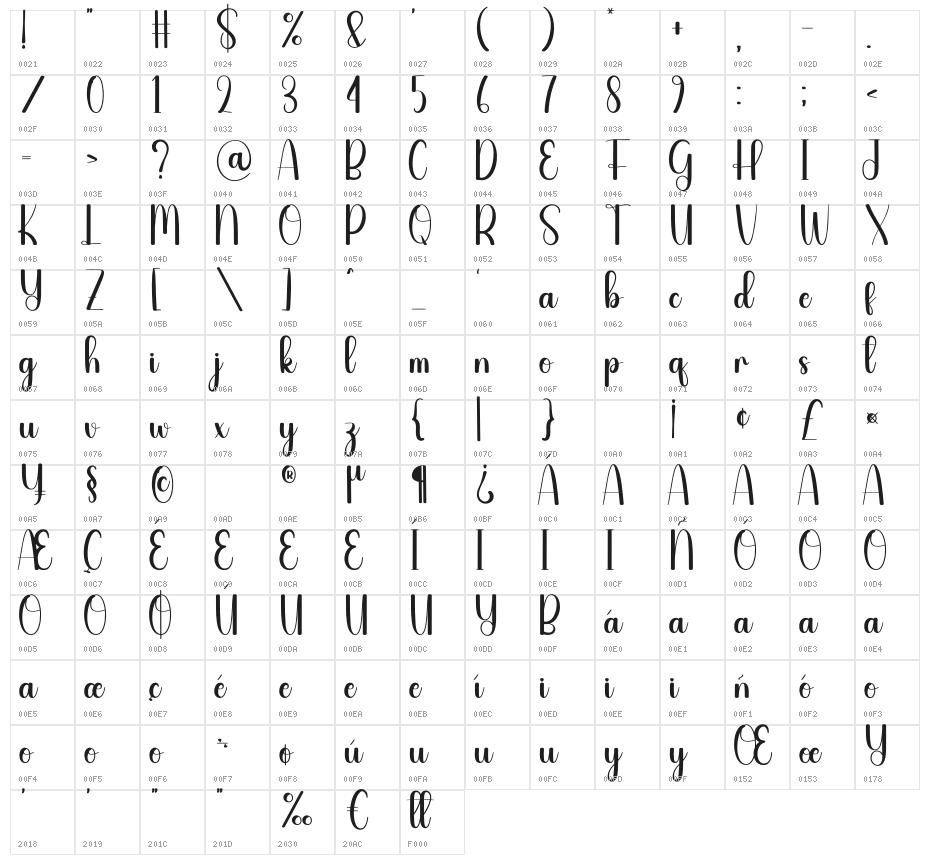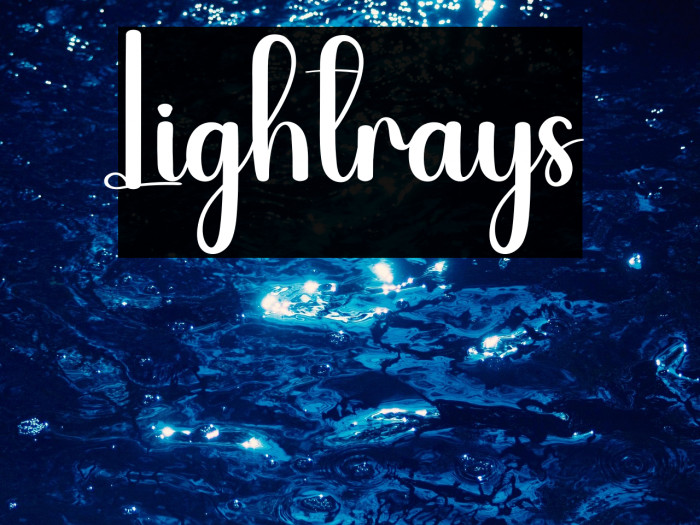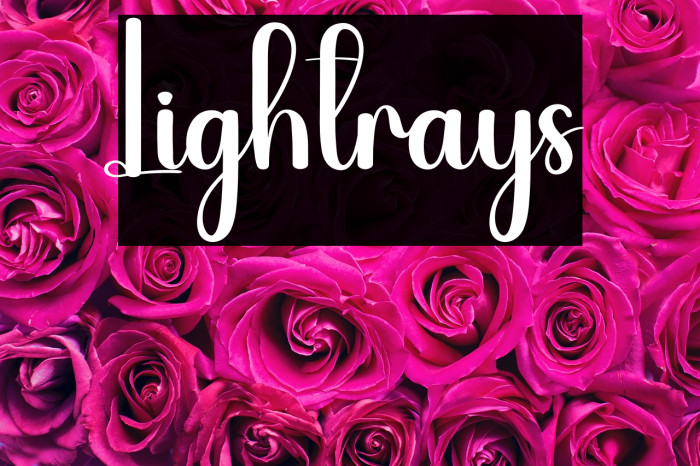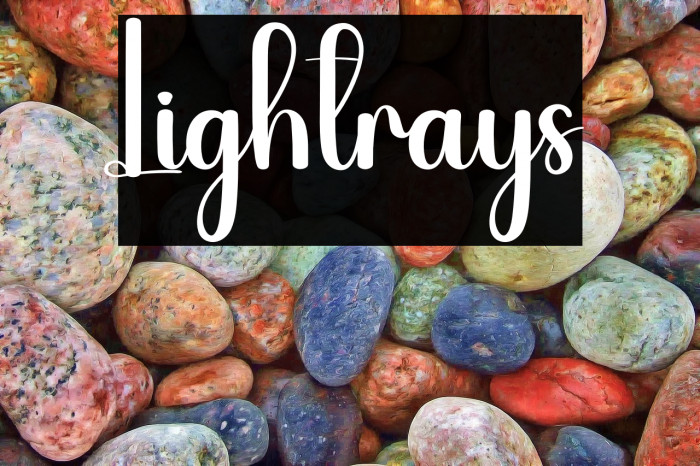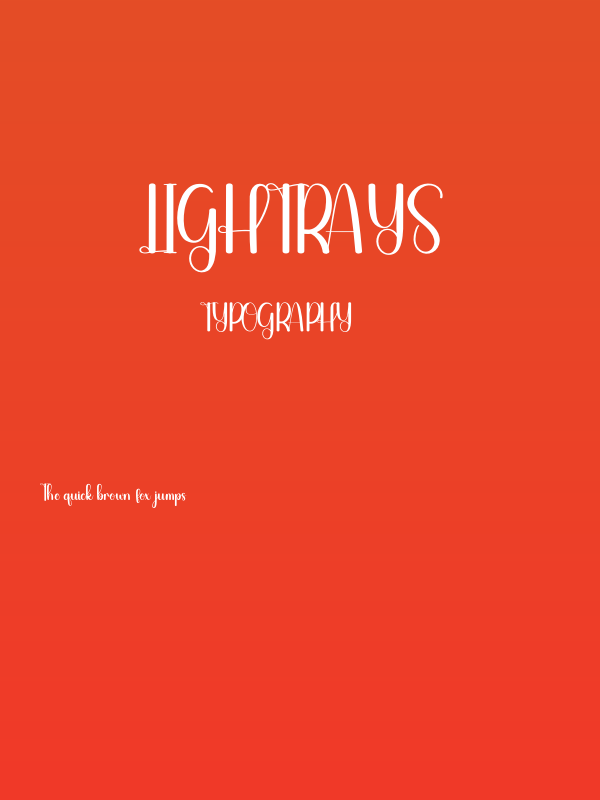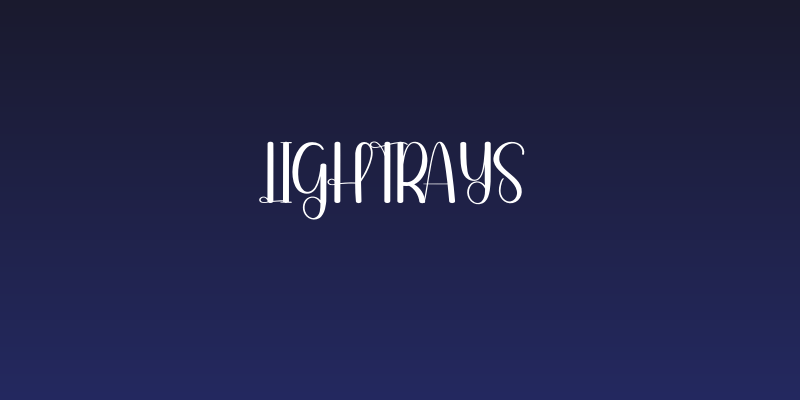
Lightrays Font
Lightrays Description
This font features a decorative and whimsical style with a playful flair. The uppercase letters are characterized by their tall, narrow forms and unique swirls that add an elegant touch. The lowercase letters maintain a consistent flow, with some letters extending slightly below the baseline, enhancing its handwritten appeal. Numbers are distinct and maintain the same decorative style, making them stand out. Special characters are creatively designed, matching the overall aesthetic. This font is perfect for projects that require a touch of elegance and creativity.
| Use Case | Logos, Headlines, Invitations |
| Proposed Projects | Ideal for wedding invitations, greeting cards, branding projects, and decorative posters. |